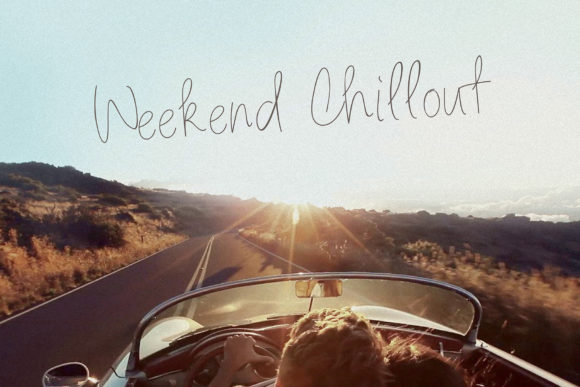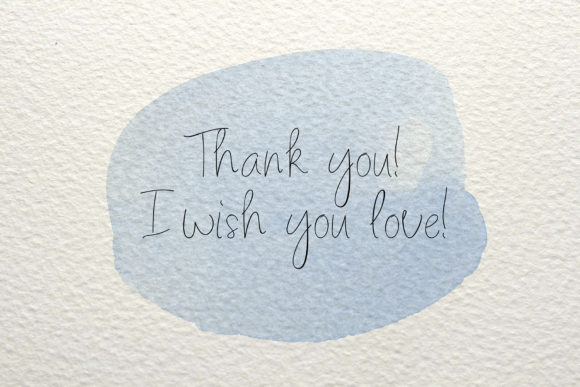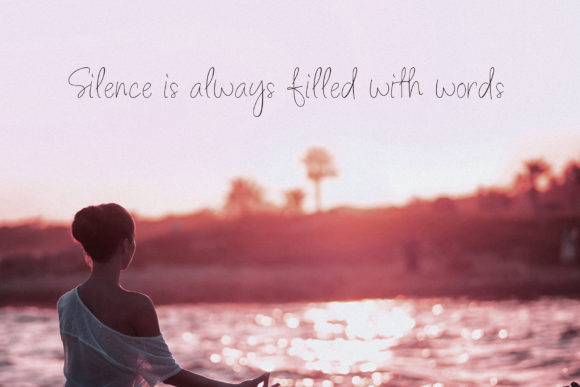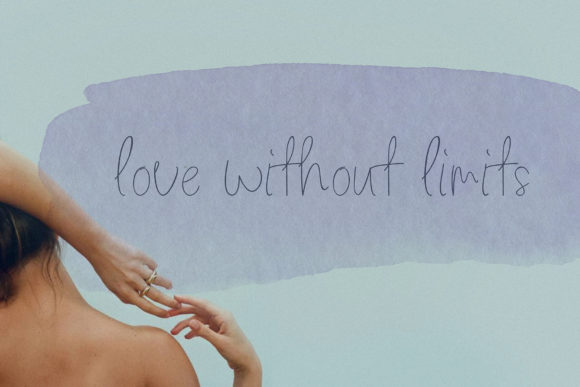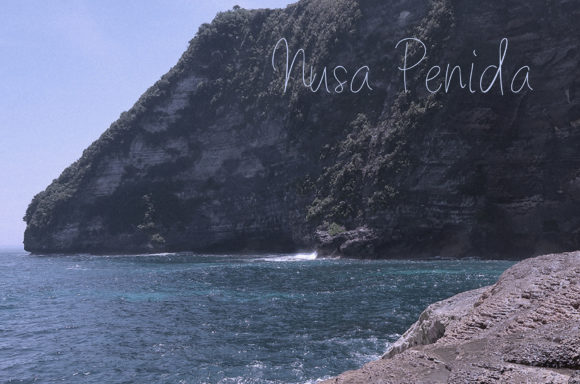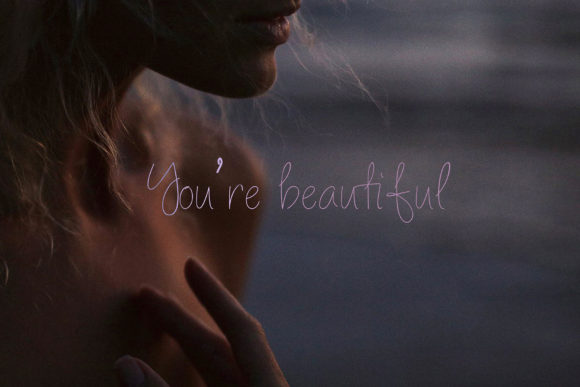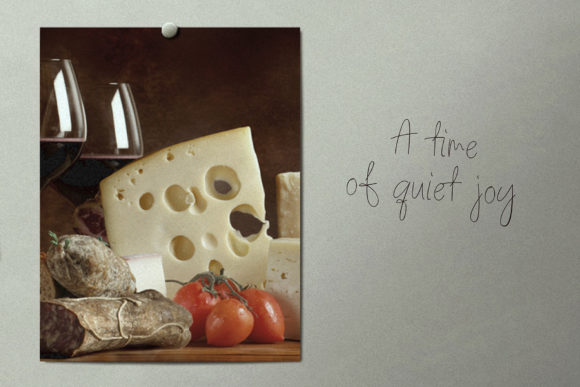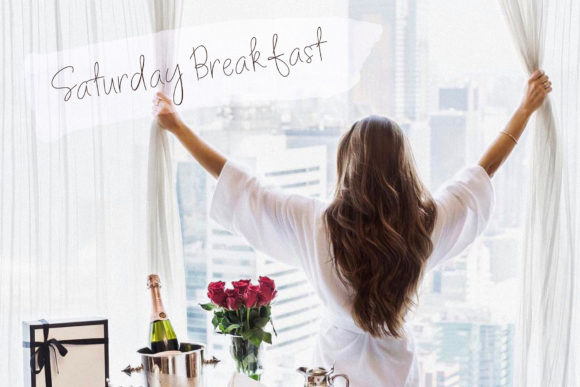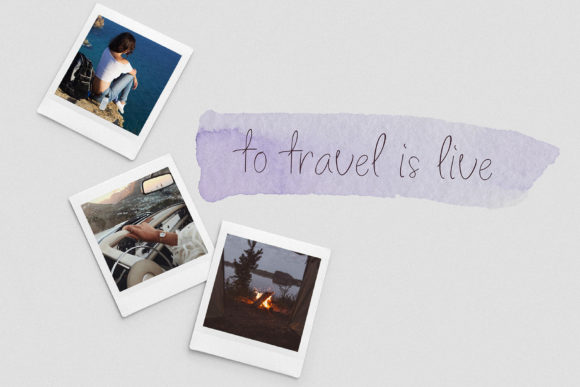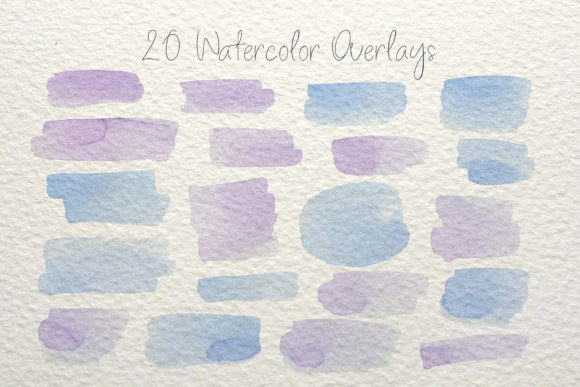
Arielle Font
About Arielle Font
Arielle is a graceful and refined script font characterized by its delicate and thin letterforms. This font is a versatile choice that can elevate a variety of branding projects, from logos to t-shirt designs and beyond. Its elegant and sophisticated style adds a touch of class to any visual representation.
When incorporated into logos, Arielle exudes a sense of professionalism and sophistication. Its thin strokes and flowing curves create a harmonious balance that conveys both elegance and modernity. Whether for a fashion brand, a creative agency, or any other business, Arielle can help establish a strong visual identity that resonates with clients and customers.
In the realm of t-shirt printing, Arielle brings a unique and fashionable touch. Its thin letterforms lend themselves well to trendy and minimalistic designs, allowing you to create apparel that’s both stylish and comfortable. The font’s versatility ensures that it can cater to various themes, from athletic wear to artistic statement pieces.
Arielle also shines in sport-related designs. Its sleek and dynamic appearance can capture the energy and enthusiasm associated with sports and fitness. Whether it’s for team logos, event promotions, or sports-themed merchandise, Arielle adds an extra layer of appeal that aligns seamlessly with the aesthetics of the sports industry.
Furthermore, Arielle’s versatility extends to a wide range of contexts. Its delicate and sophisticated nature makes it suitable for projects beyond branding, such as editorial designs, quotes, social media graphics, and more. Regardless of the application, Arielle has the potential to create a lasting impression with its elegant and eye-catching appearance.
In conclusion, Arielle is a thin-lettered and delicate script font that effortlessly enhances branding projects, t-shirt designs, sport-related visuals, and more. Its versatile nature allows it to shine in a variety of contexts, making it a valuable asset for designers seeking a touch of sophistication and style in their creations.